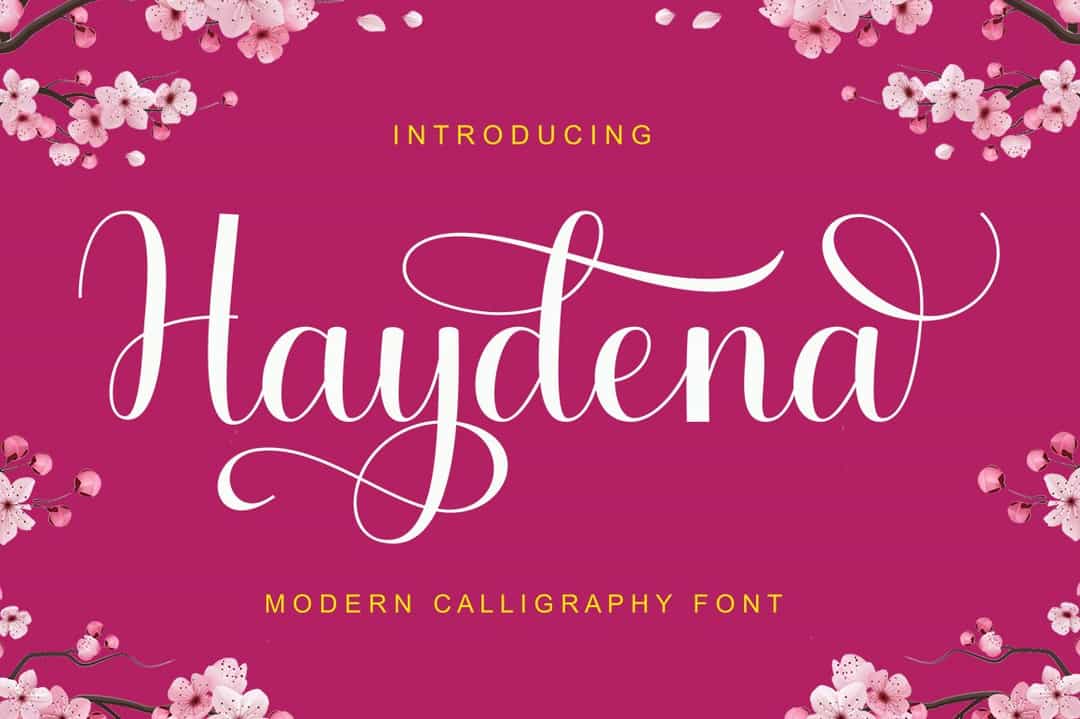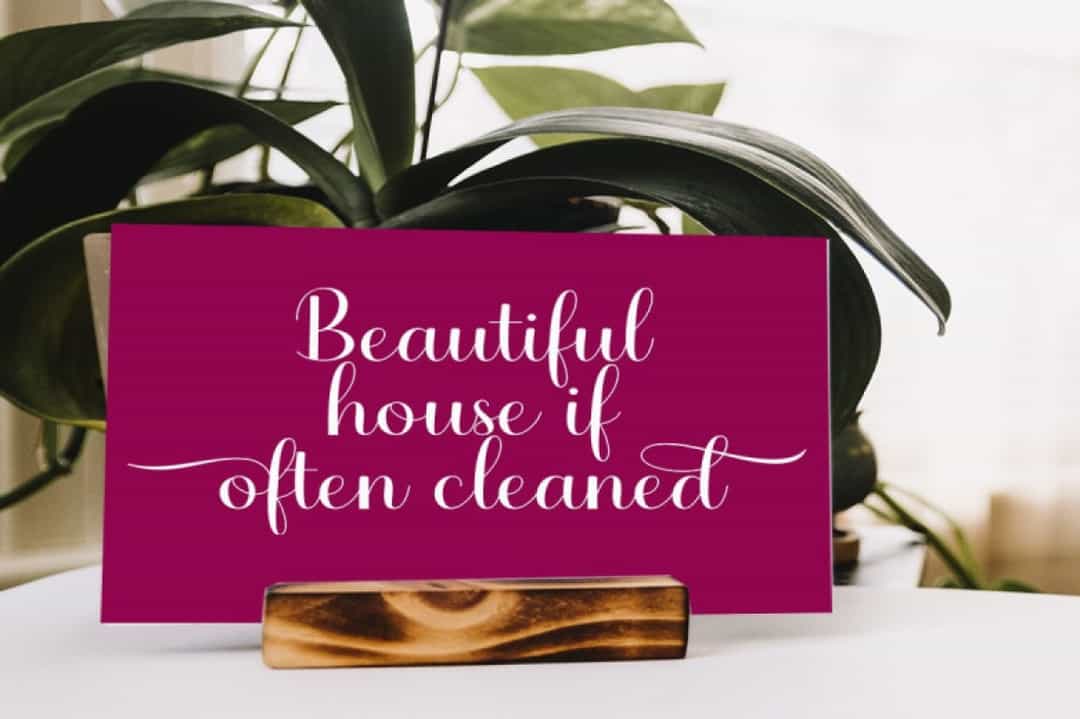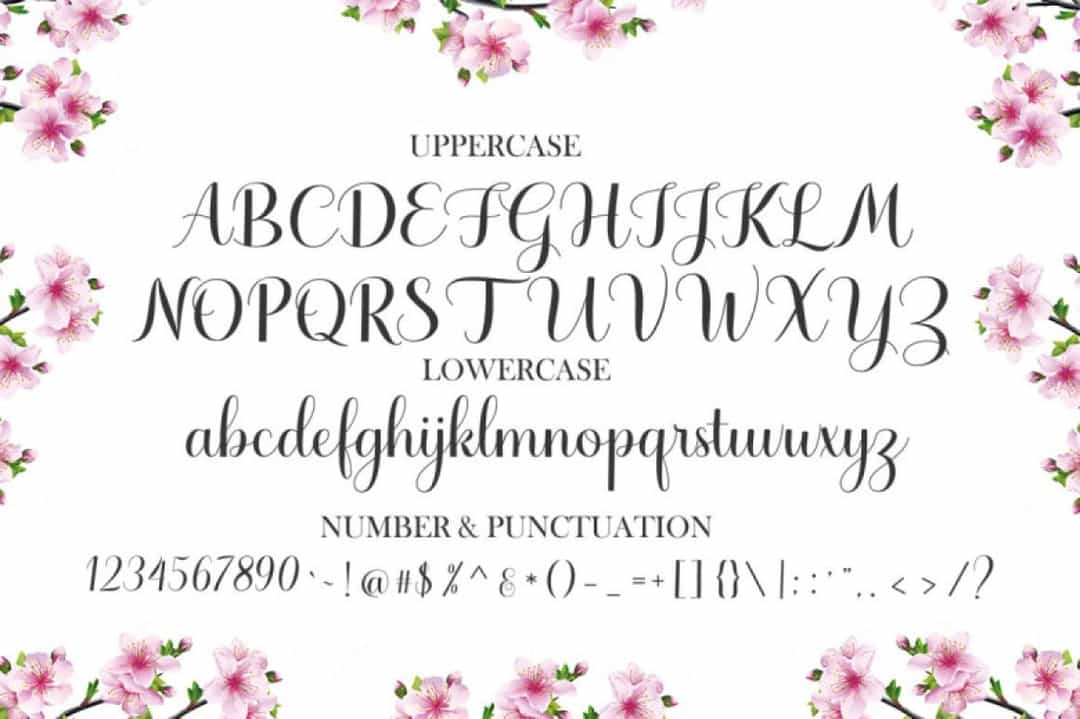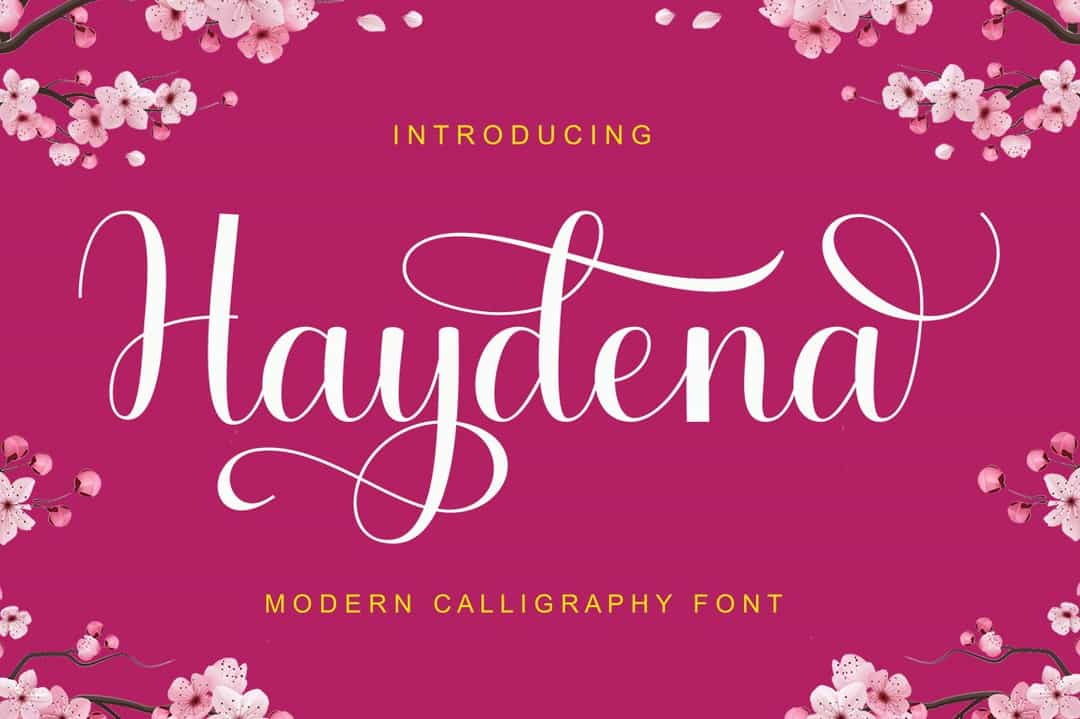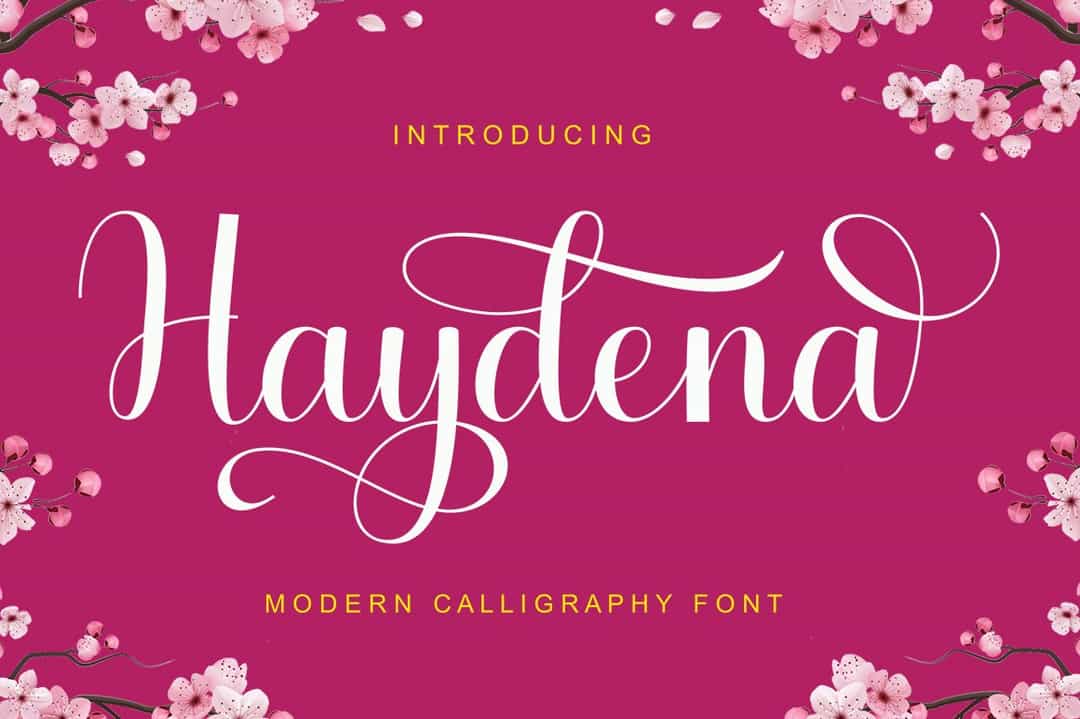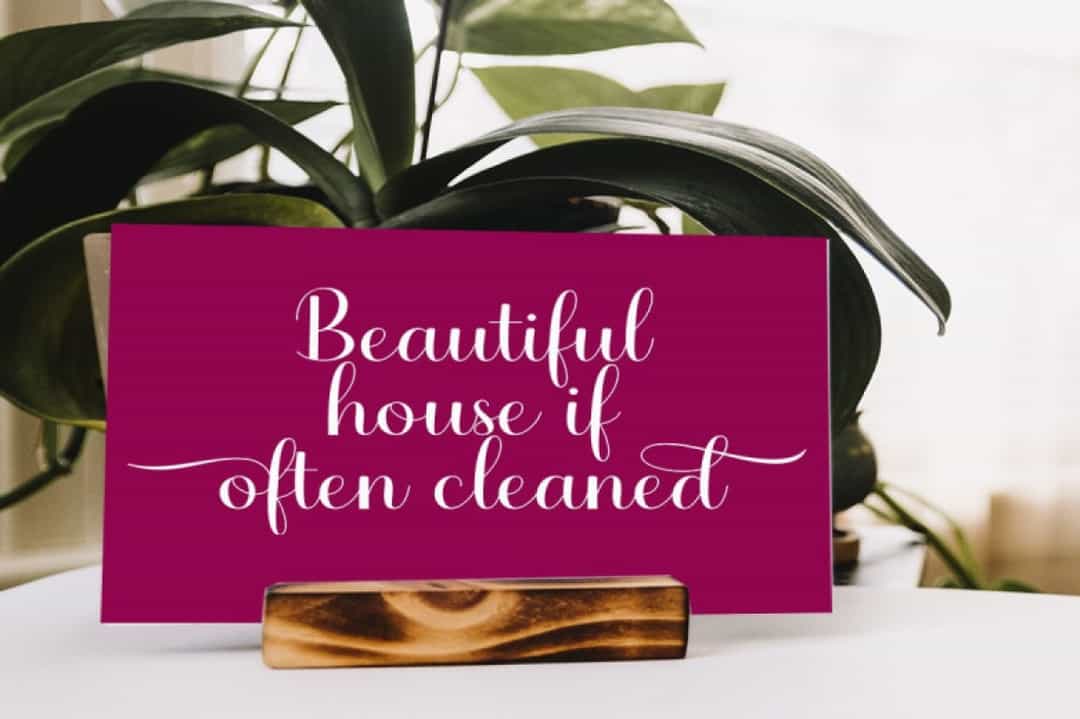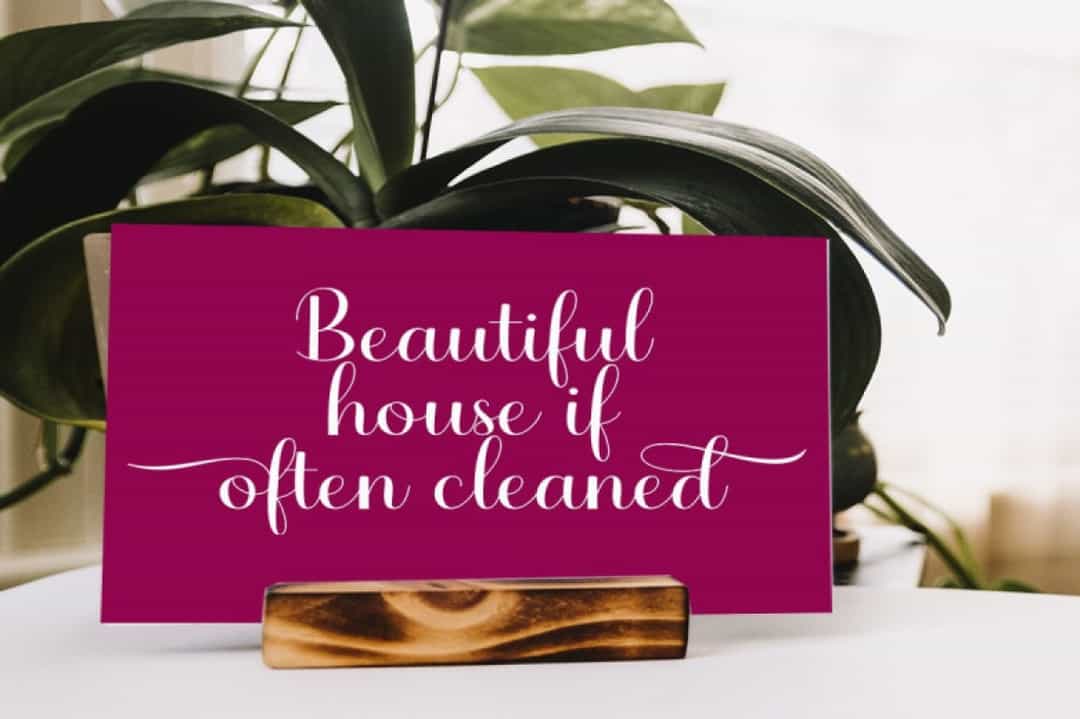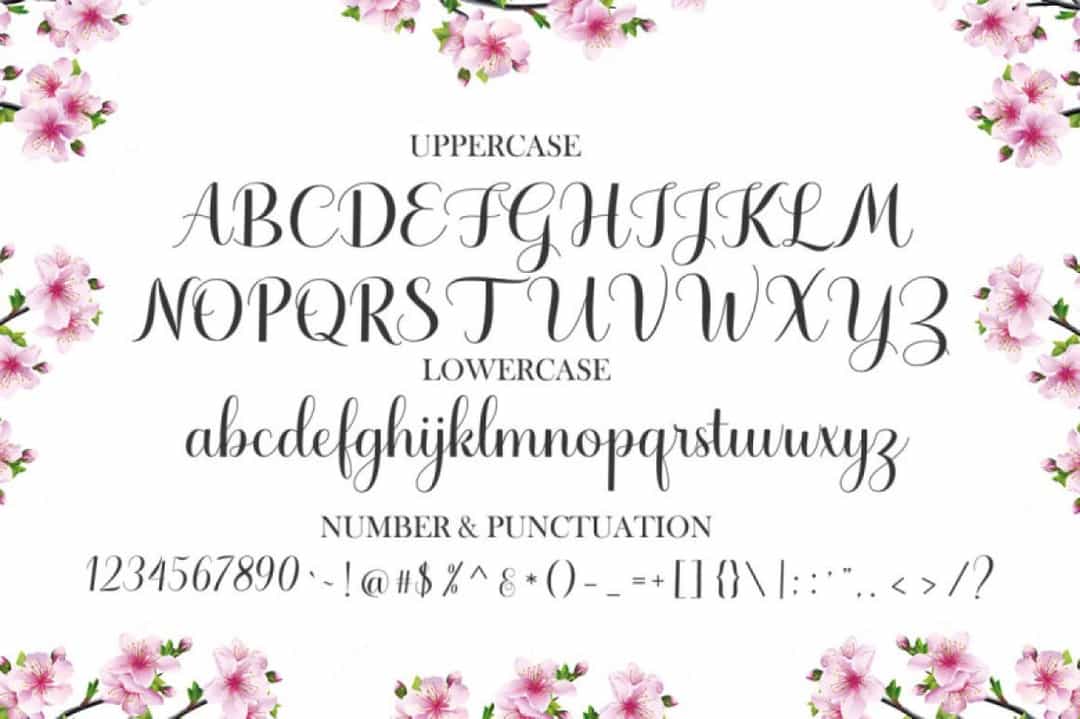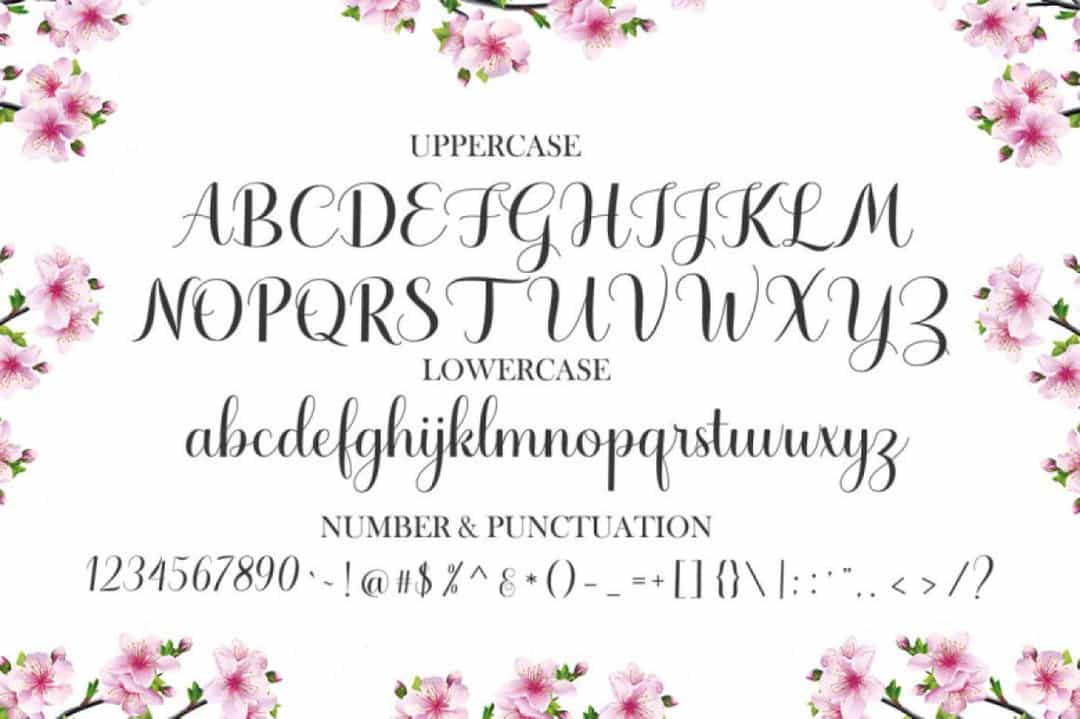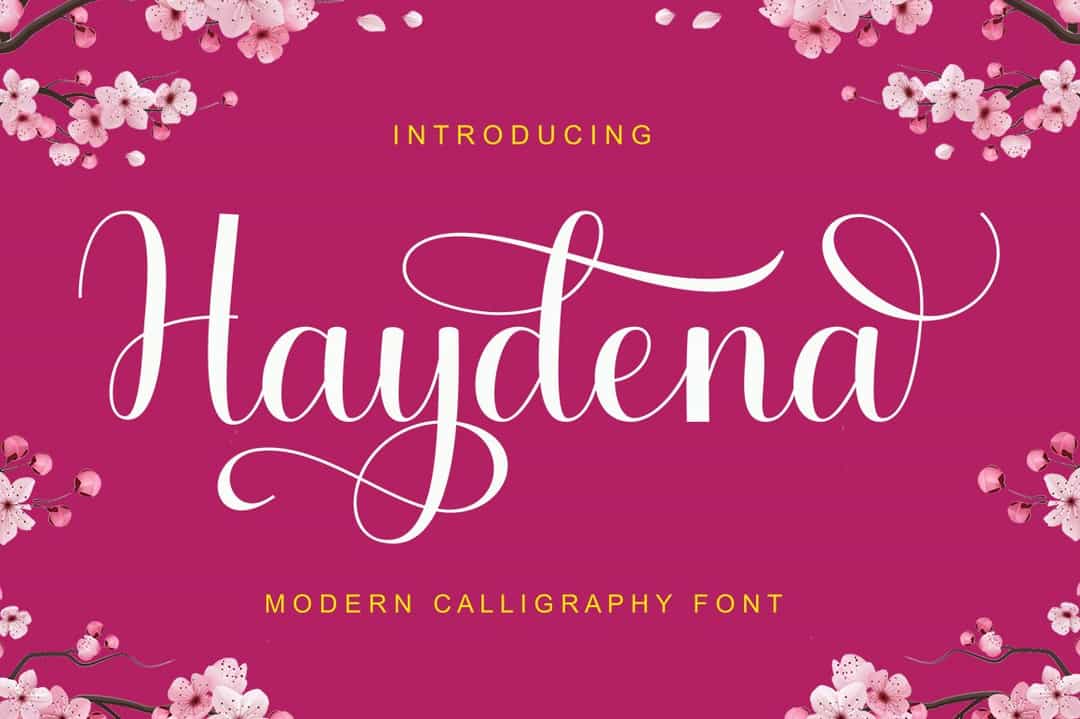
Haydena is an eye-catching calligraphic manuscript font with contemporary appeal and stunning Swashes that make this font suitable for various applications such as names, signatures, logos wedding invitations letterheads labels signage newsletters posters badges etc.